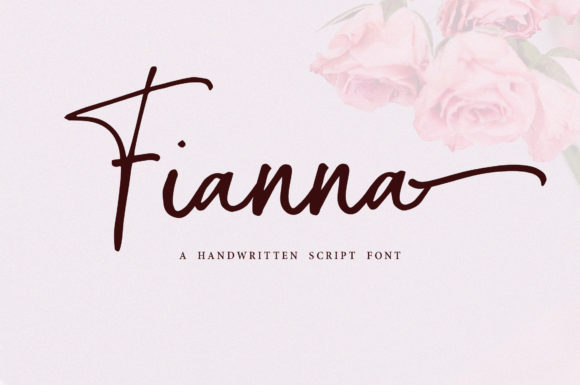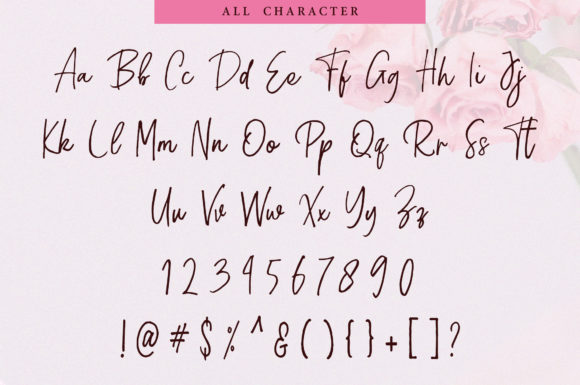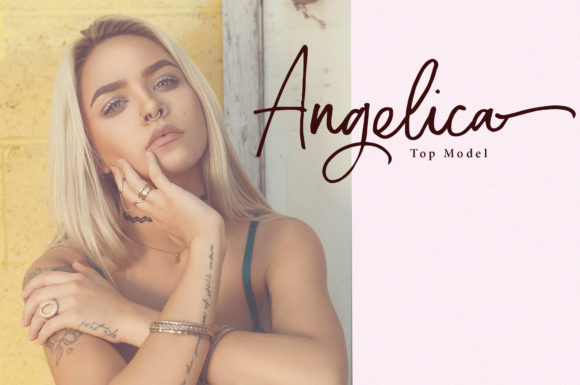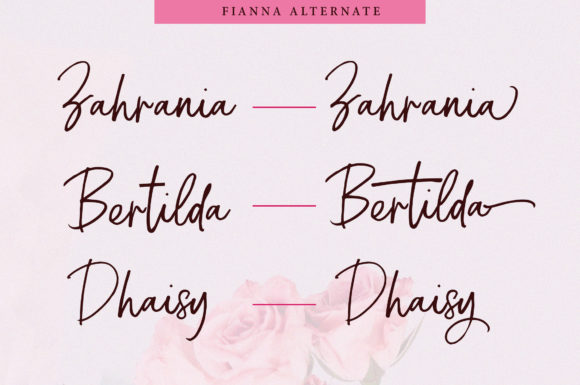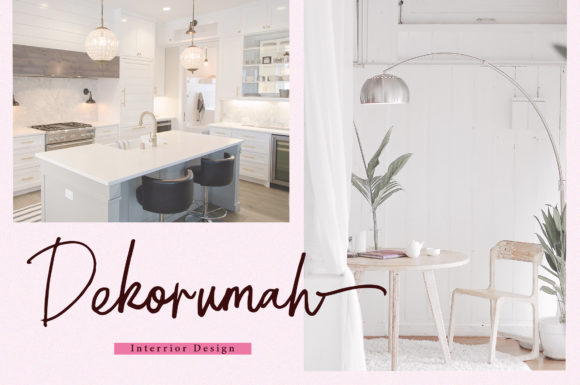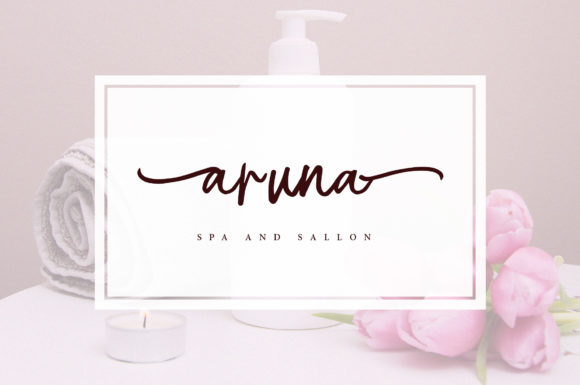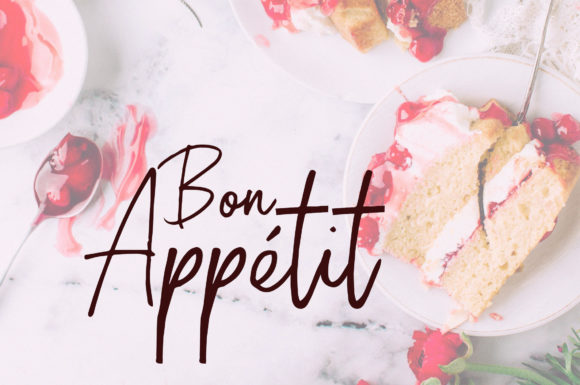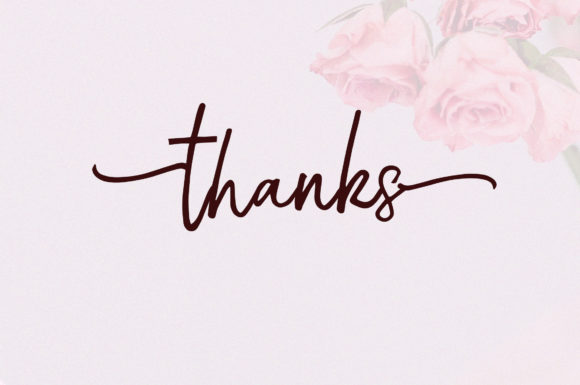
Fianna Font
About Fianna Font
Fianna is an incredible handwritten font with a unique feel. Get inspired by its authentic charm, and add a personal touch to any design project.